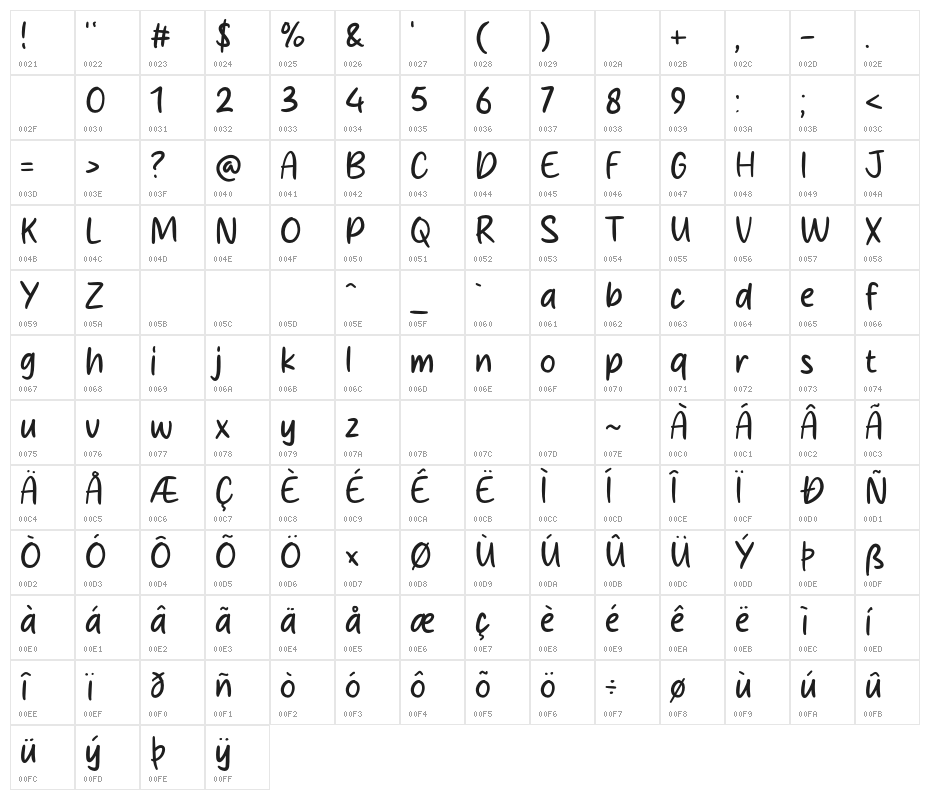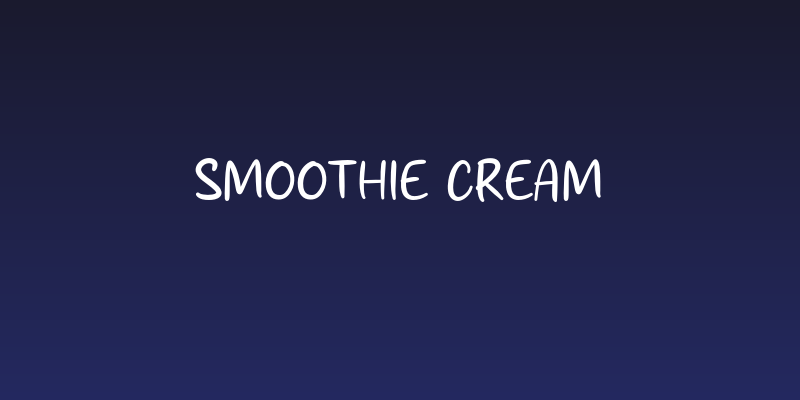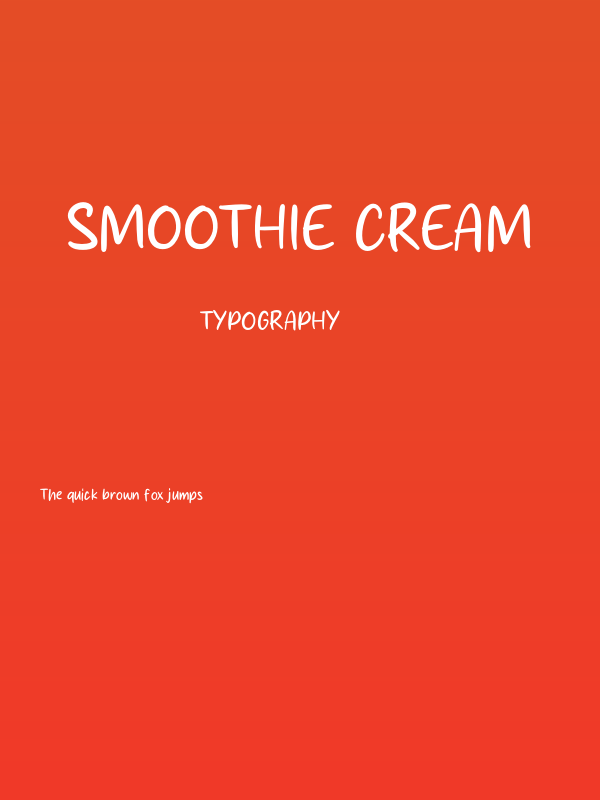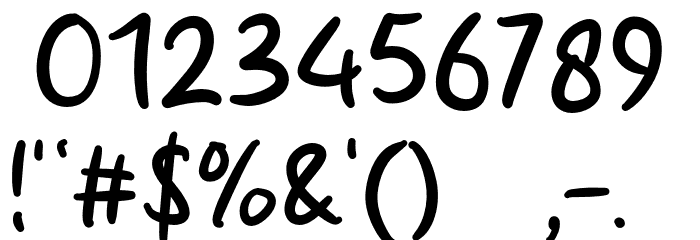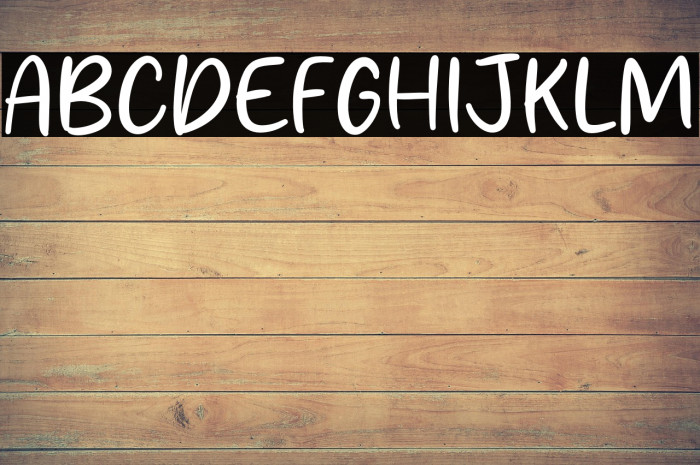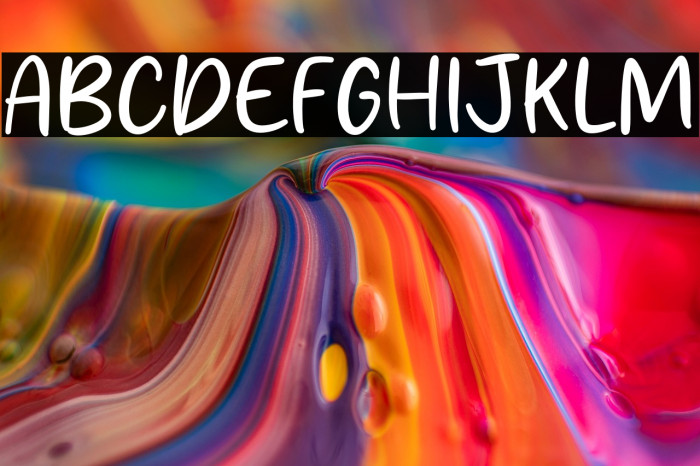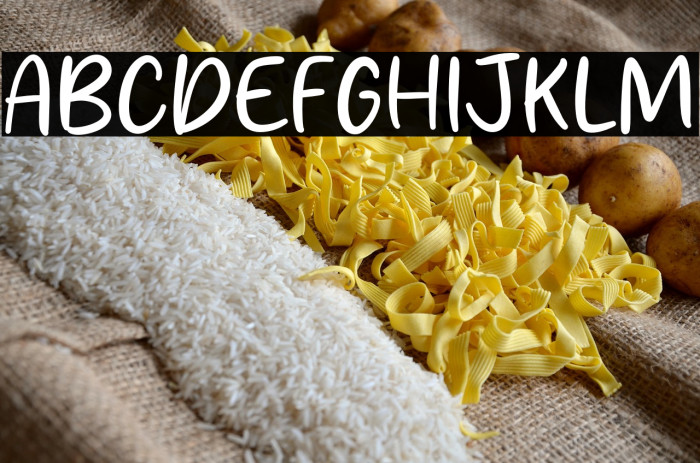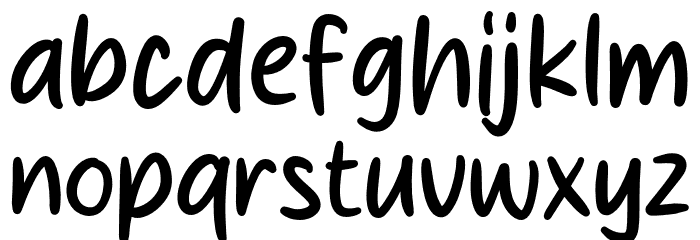
Smoothie Cream Font
Smoothie Cream Description
This font features a playful and casual handwritten style, characterized by smooth, rounded edges and a consistent stroke width. The letters are slightly slanted, giving it a dynamic and lively appearance. The uppercase and lowercase letters maintain a uniform height, contributing to its readability and charm. Numbers and special characters are crafted with the same playful touch, making them blend seamlessly with the alphabet. This font exudes a friendly and approachable vibe, perfect for projects that require a personal and informal touch.
| Use Case | Logos, Headlines, Informal texts |
| Proposed Projects | Ideal for greeting cards, children's books, casual branding, and social media graphics. |